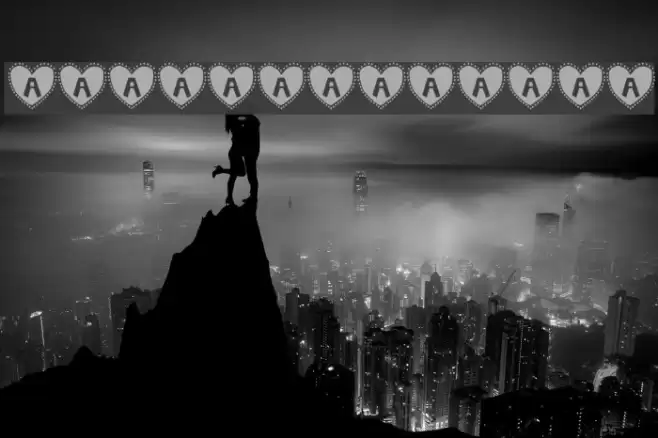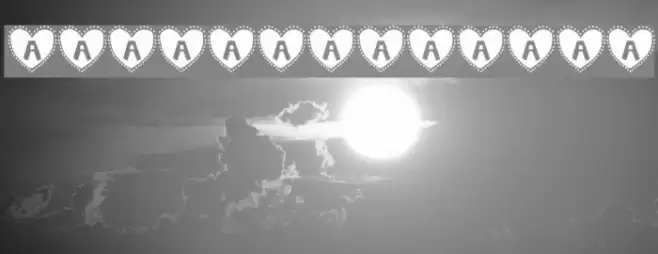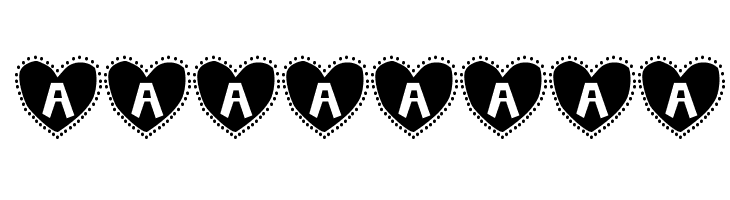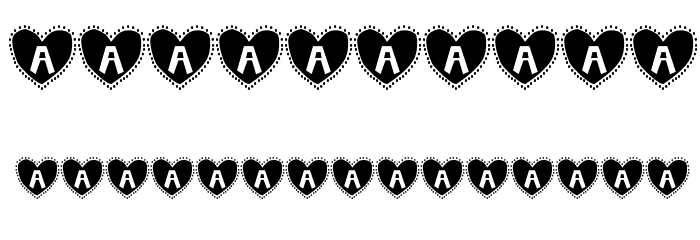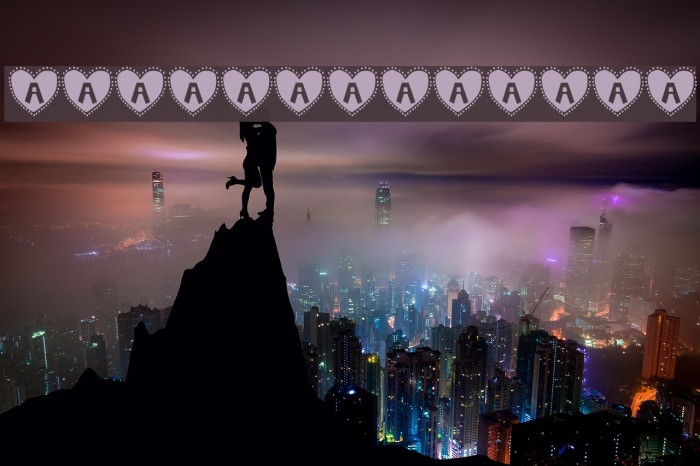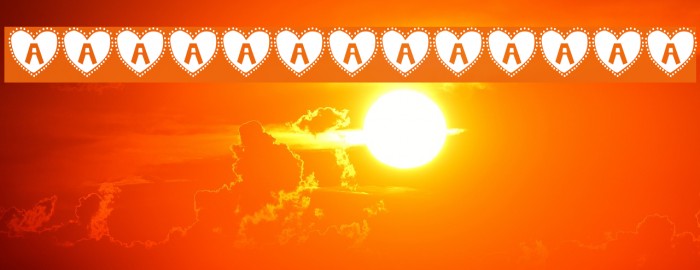
Krishart Font
Krishart Description
A playful decorative font where each character is placed inside a solid black heart shape with a dotted outline, featuring a simple, geometric sans-serif letterform centered within each heart.
Decorative font with letters inside dotted heart shapes from Images & Symbols fonts.
- Proposed Projects: Greeting cards, children's party invitations, Valentine's Day materials, playful branding, scrapbooking.
- Overall Style: Playful, Decorative
- Use Case: Headlines, Logos, Themed graphics